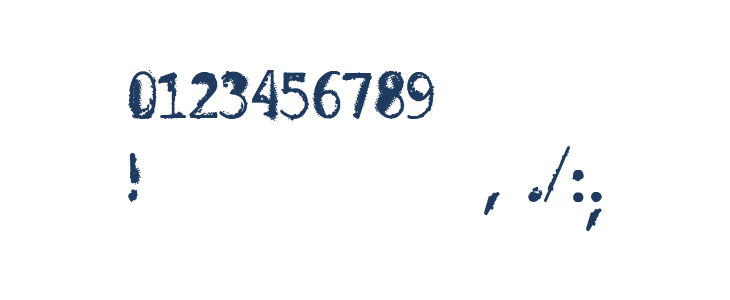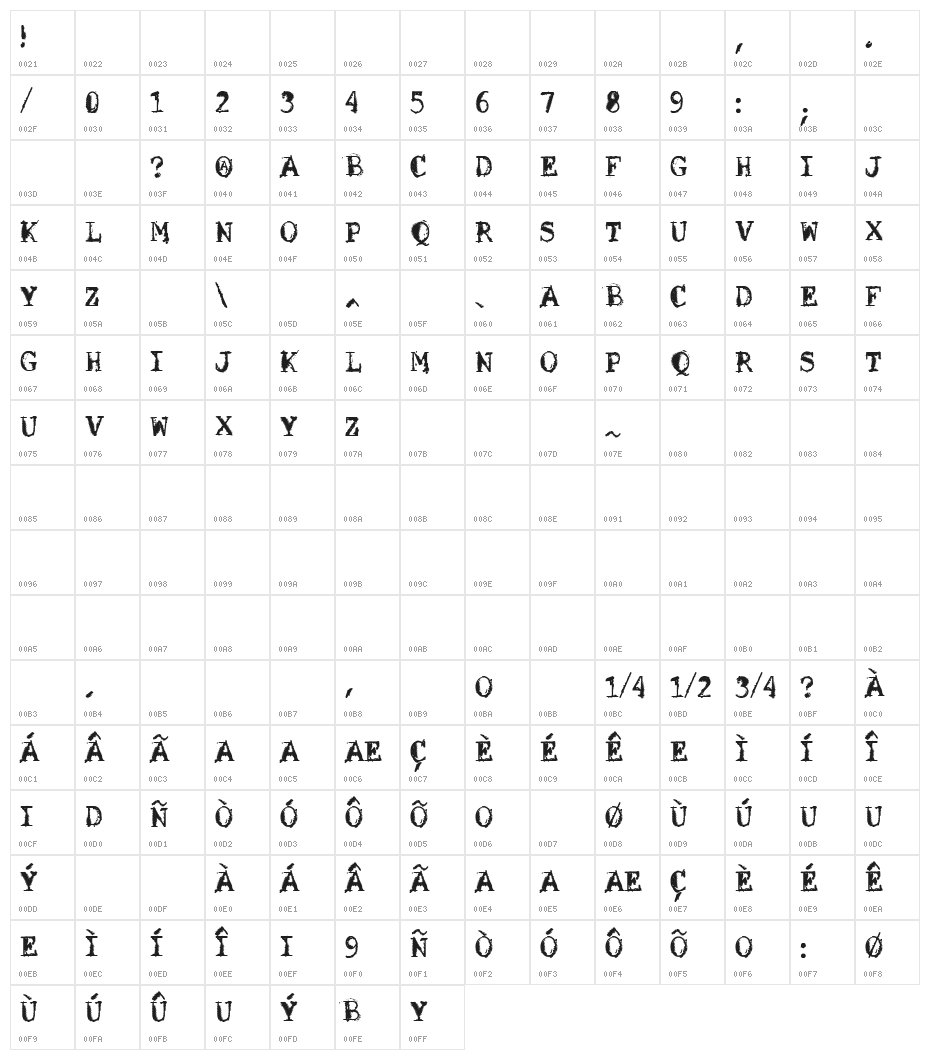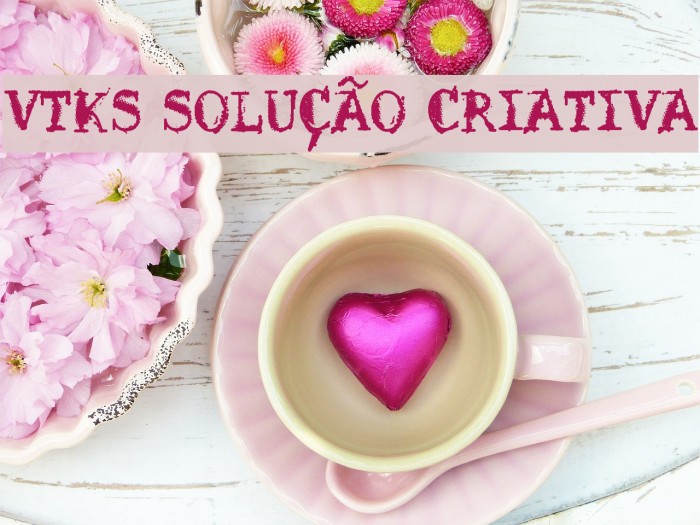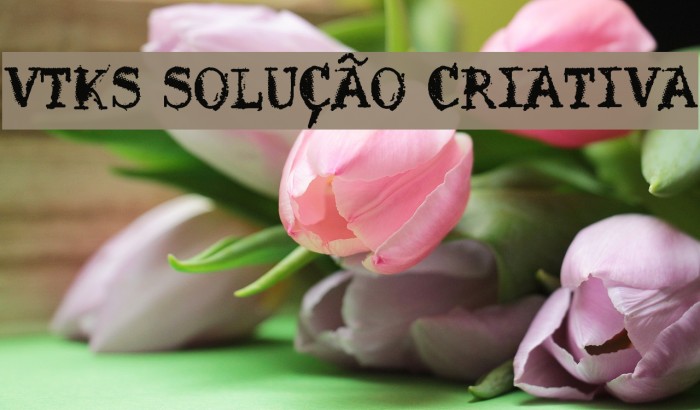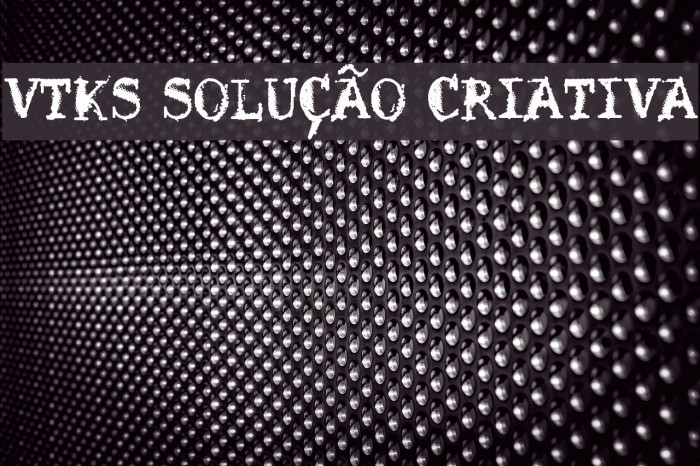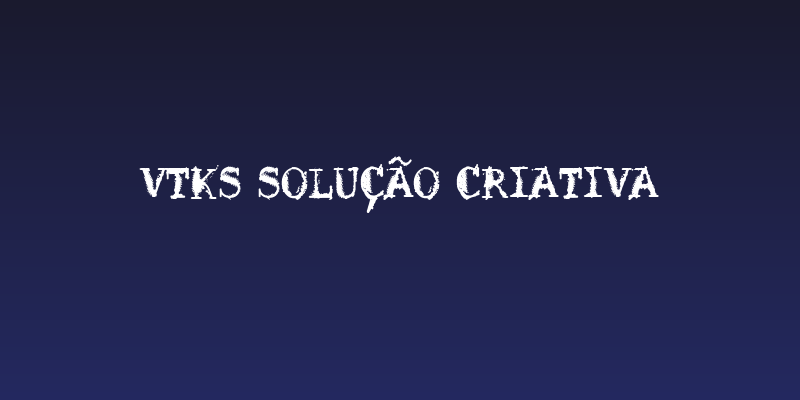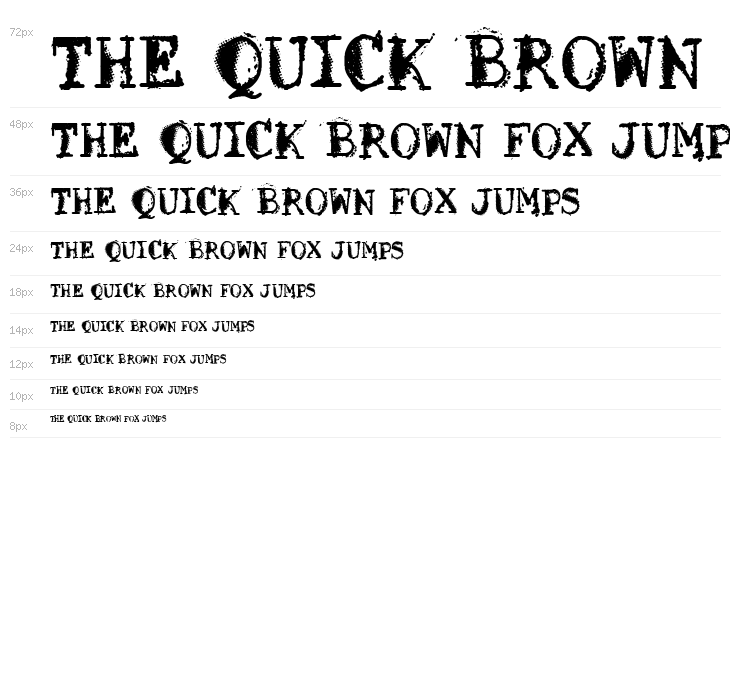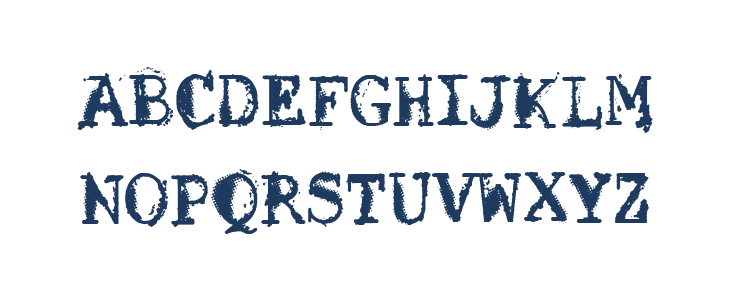
VTKS SOLUÇÃO CRIATIVA Font
VTKS SOLUÇÃO CRIATIVA Description
This font features a distressed and grungy style, characterized by rough edges and a textured appearance. The letters have a bold presence with irregular outlines, giving them a worn and vintage look. The uppercase and lowercase letters maintain a consistent style, with a slightly condensed form that adds to the rugged aesthetic. Numbers and special characters follow the same design, ensuring a cohesive appearance across all glyphs. This font's unique style makes it suitable for projects that require a bold and edgy look, such as posters, album covers, or branding for alternative or rock-themed events.
| Proposed Projects | Ideal for posters, album covers, and branding for alternative or rock-themed events. |